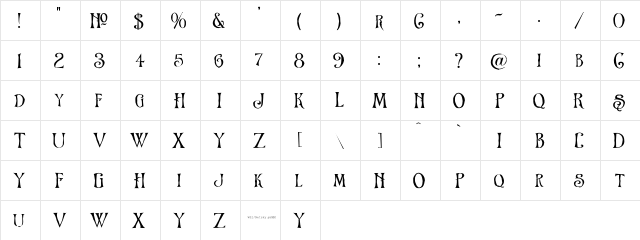
LHF Chapman Regular
| Foundry | Dave Smith & Letterhead Fonts |
| Designer | Dave Smith & Letterhead Fonts |
LHF Chapman is a composed and adaptable typeface that performs quietly and consistently across a wide range of design contexts.